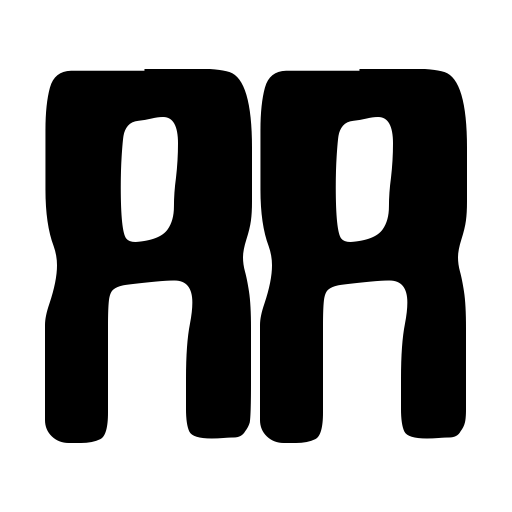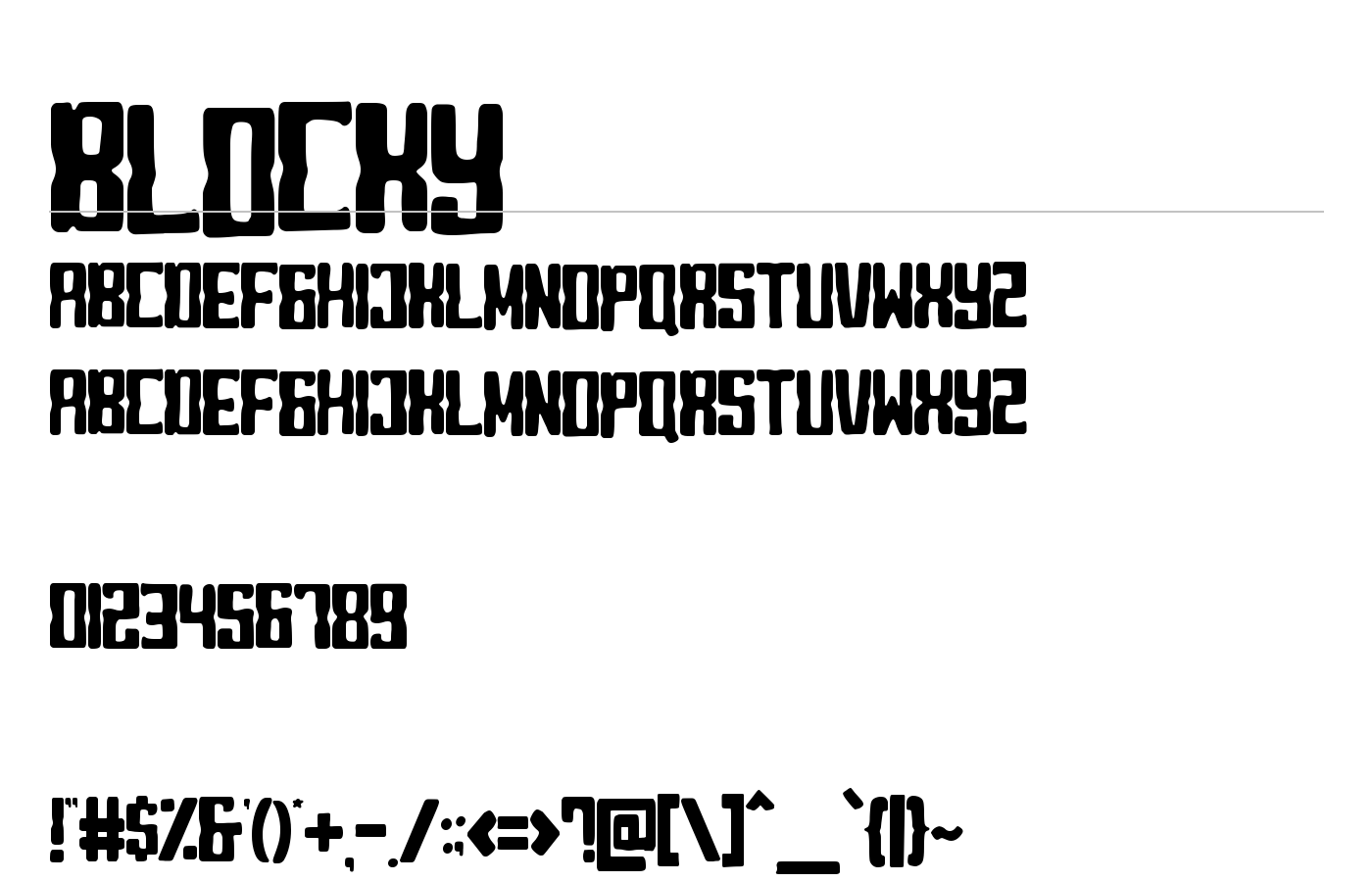
Blocky Font is a bold, condensed sans-serif typeface with a playful and slightly rounded geometric style that gives it a strong, sturdy presence. Its uniform stroke weight and tight spacing make it ideal for attention-grabbing headlines, posters, and branding that seek a modern, industrial yet approachable feel. This font works well in creative and informal designs where a distinctive, impactful look is desired.
Blocky Font
About Blocky Font
| Font family | Blocky Font |
| Designer | Dimas Prasetyo |